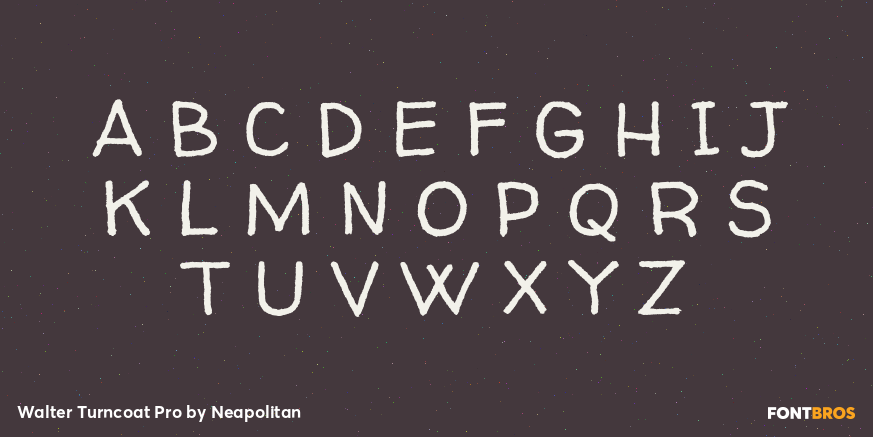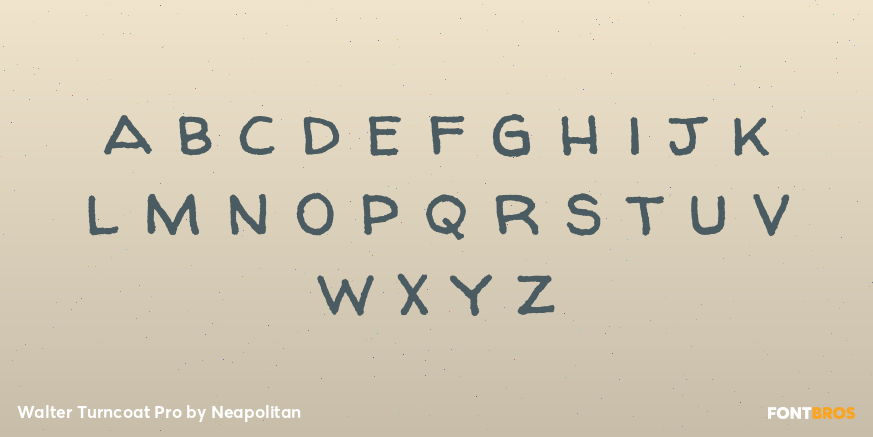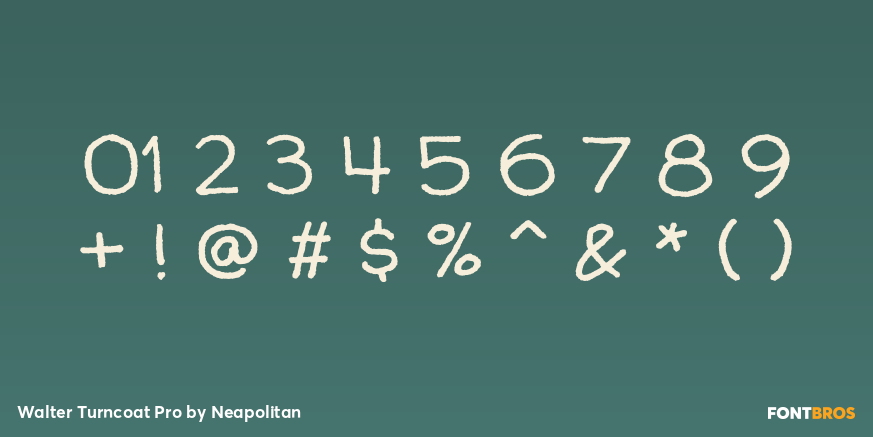
Walter Turncoat Pro
Font Family by Neapolitan
Contrary to popular lore, Walter Turncoat was NOT a traitor executed during the Revolutionary War. Actually, Walter spent his days carefully executing new typefaces doing his part to help establish a free press! Ever the patriot, Squid honors old Walter with this spiffy font sure to bring out the Yankee Doodle in you.